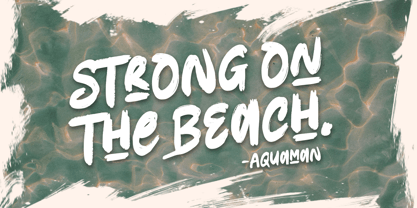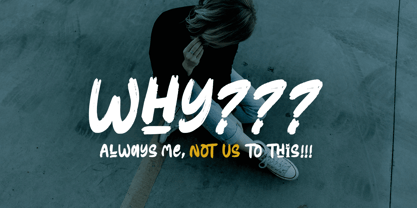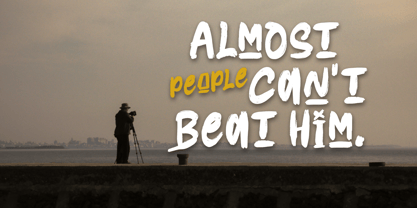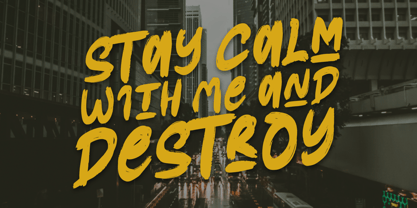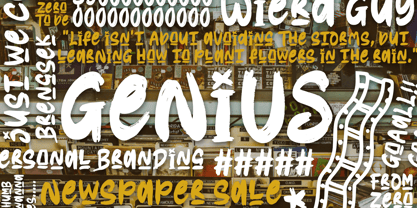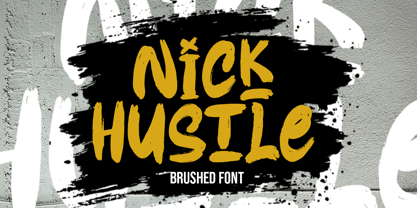
Nick Hustle
by Struggle Studio
The Nick Hustle Font Family was designed by Andri Kurniawan and published by Struggle Studio. Nick Hustle contains 2 styles and family package options. More about this family
Nick Hustle is a bold, urban-style brush font that captures the vibrant energy of authentic hand-lettering. Each stroke exudes powerful brush textures, providing a fearless and distinctive appearance. This versatile font features two styles: Regular, which offers a solid and highly legible look, and Slant, which introduces a dynamic and fast-moving essence. It's ideal for applications such as posters, branding, merchandise, album covers, streetwear designs, and any creative project seeking an artistic yet rebellious edge. Its strong visual impact makes it a perfect choice for elevating your brand's aesthetic and making a memorable statement.